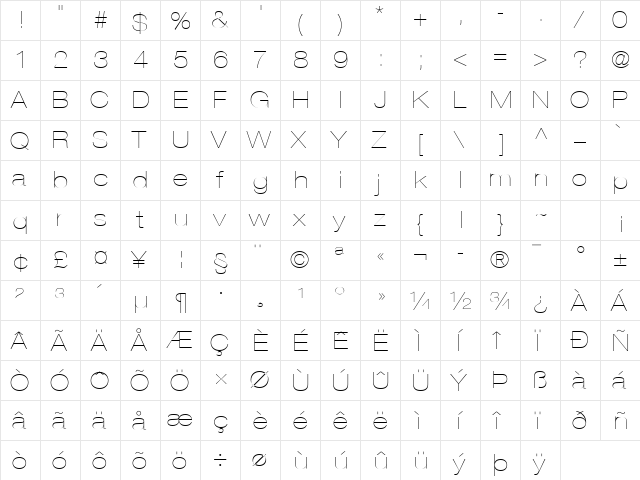
Helvetica Neue LT Com 23 Ultra Light Extended
| Foundry | Linotype GmbH |
| Designer | Linotype Design Studio |
Design Context for Helvetica Neue LT Com Typeface
Helvetica Neue LT Com offers clean, dependable letterforms without strong stylistic allegiance, making it a practical choice for designers who need flexibility. The delicate stroke weight brings airiness and refinement to layouts.